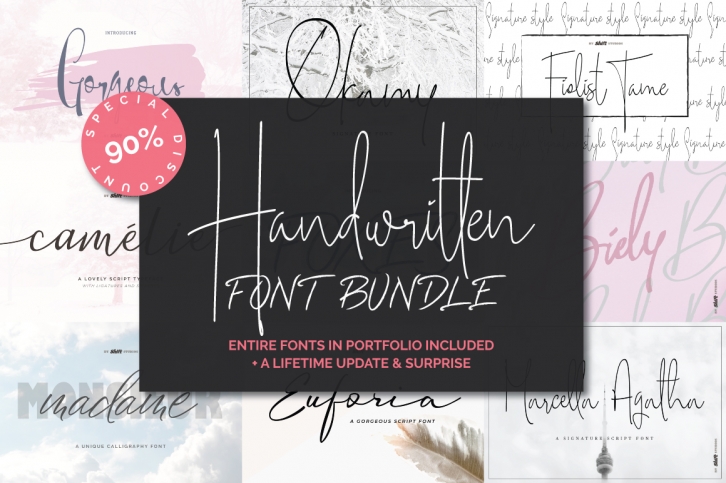
Handwritten Bundle is a beautiful font that was designed by Shift Studios. It's a great choice for designers and creatives who need such a font. It was released on August 13, 2018 and the file size is 7.52 MB. Handwritten Bundle may give a more youthful, expressive and casual look to your project. It is a very beautiful, refined, elegant, and high-quality font.